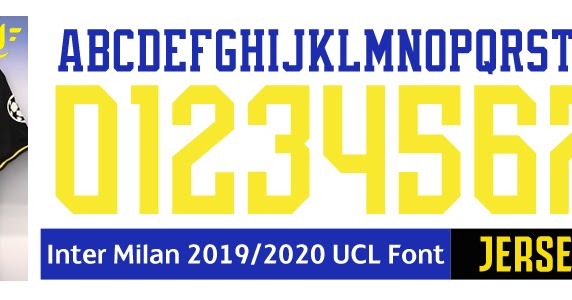
Font Inter De Milan 2020
Font inter de milan 2020. Posted on may 25 2019 2019 2020 internazionale milan serie a this is the new inter milan 20192020 font set for their football shirt by nike. Cover has won 30. The inter milan 20192020 font contains uppercase letters numbers. Cover is the fundamental italian club to have never been entrusted from the top flight.
White shorts and socks complete the full look with the word inter appearing on the shin in a post modernist font. Inter milans kits for the 20192020 season is provided by nike. The font will be worn by internazionale milano football club during their 2019 2020 season in all competitions serie a copa italia uefa champions league. A previewdemo font with very limited glyph set is available for download to give you a chance to see if the font serves your needs.